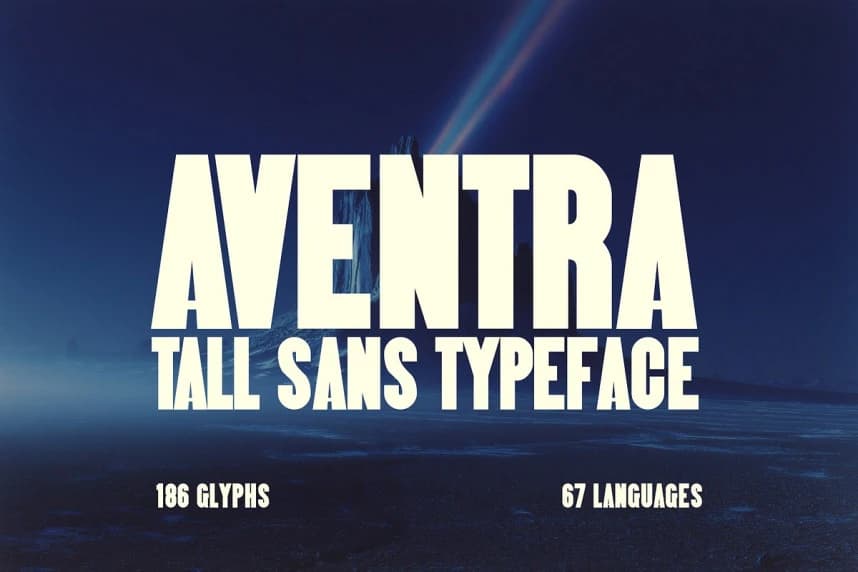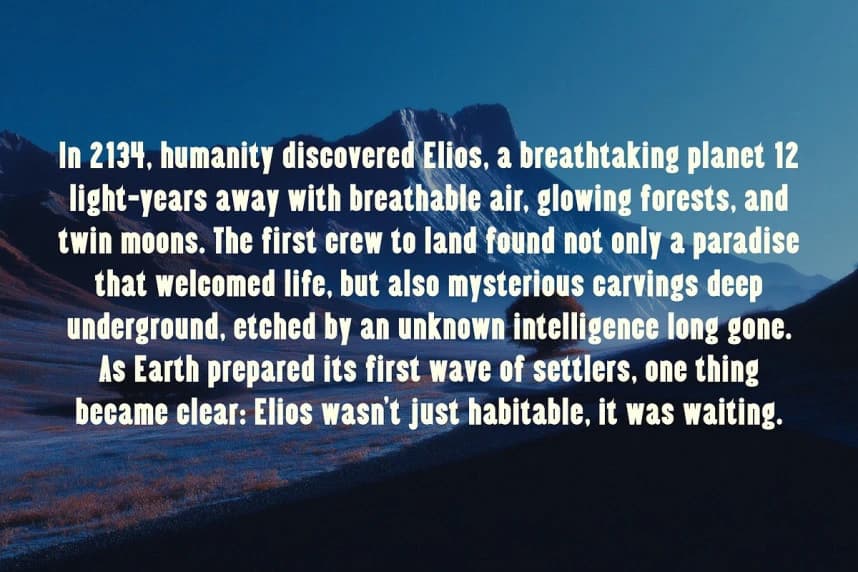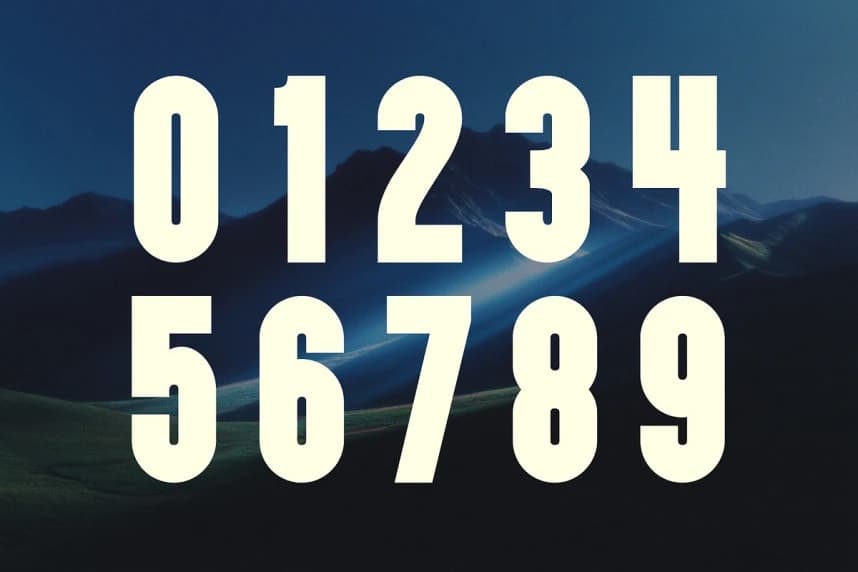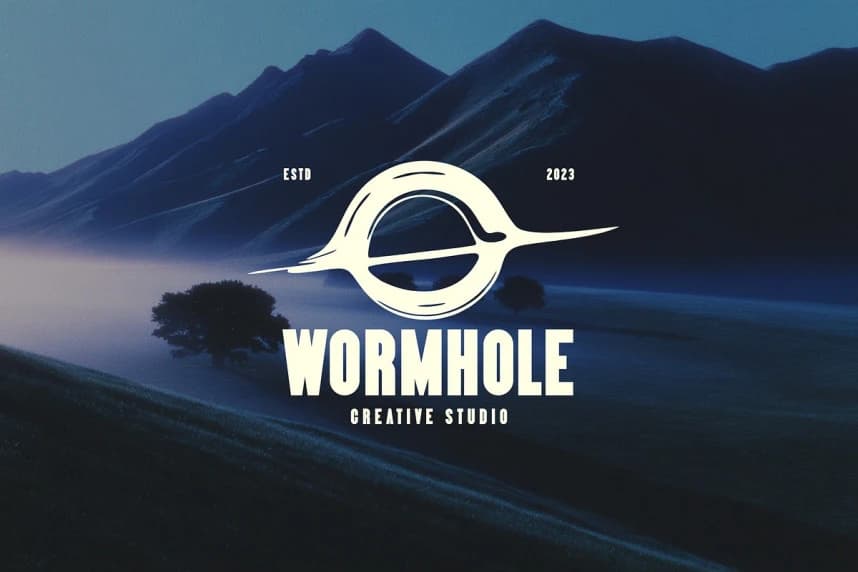
Aventra Font
Aventra Font, a tall sans serif typeface that exudes confidence, clarity, and minimal charm. With its clean lines and refined geometry, Aventra is designed to elevate your branding, packaging, and editorial projects with effortless sophistication.